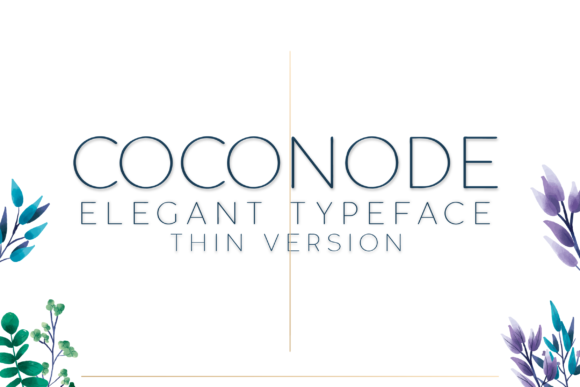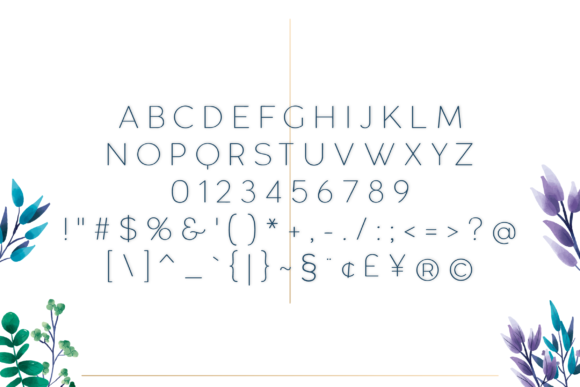
Coconode Thin is a gorgeously unique sans serif font that combines perfect readability with a clean and modernist lettering design. The font is also available in a regular and light version.